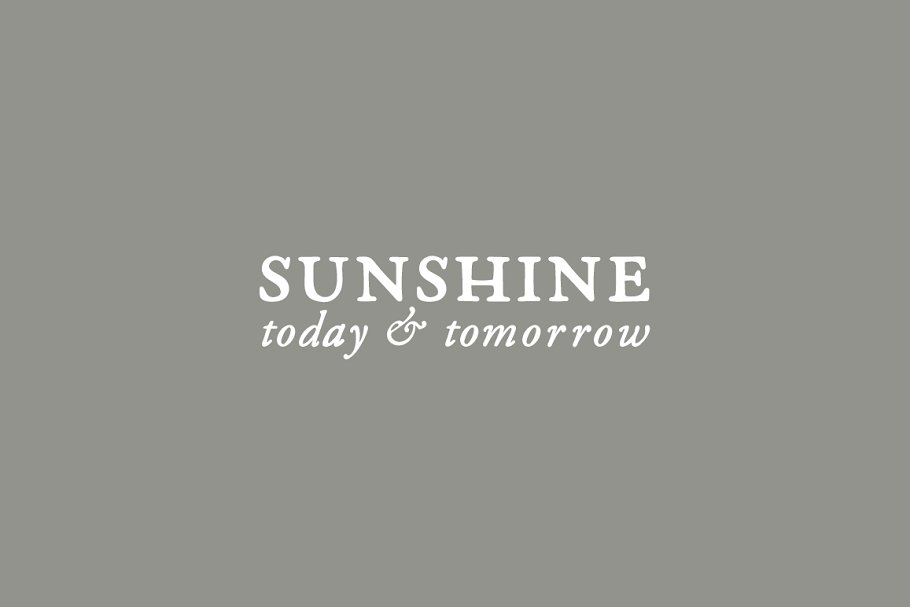
Are you looking for the perfect font to elevate your design portfolio? Look no further than the Fabello Family, a stunning serif font created by hand by Britt Fabello herself. With its vintage-inspired lines and touch of organic, this font exudes timeless charm while still feeling fresh and modern.
But the Fabello Family isn't just a pretty face. It's also incredibly versatile, perfect for any project that needs a bold or thin style. Whether you're designing a logo, a website, or a poster, this font will make your work stand out from the crowd.
And when you purchase the Fabello Family, you're not just getting one font - you're getting five weights, including Thin, Light, Regular, Bold, and Black, in both Regular and Italic styles. Plus, you'll receive all the characters you need to bring your designs to life, from A to Z and everything in between.
At the heart of the Fabello Family is Britt Fabello's commitment to the handmade design process. Each font is originally created by hand with a micron pen, giving it a unique and authentic feel that simply can't be replicated with digital tools alone. And after the handmade process is complete, the font is carefully scanned and converted to vector, resulting in a beautiful, high-quality typeface.